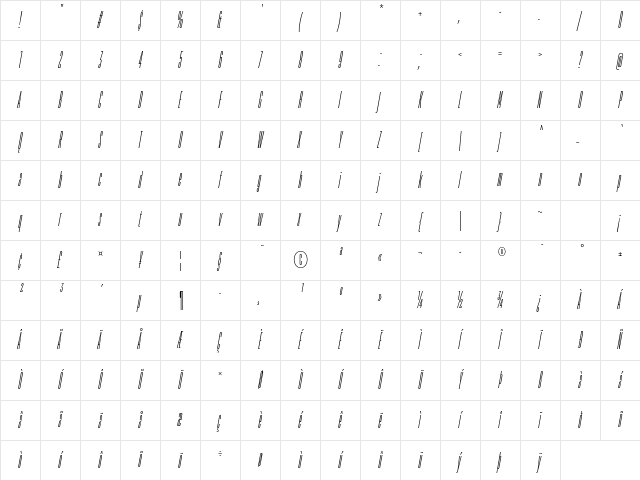
TT Bluescreens Trl Cnd XLt It
Style: XLt It
Designer: Designed by Ivan Gladkikh, Yulia Gonina. Technical designers Marina Khodak, Ekaterina Kurtova, Radik Tukhvatullin, Lada Sobchenko, Antonina Zhulkova, Maria Mezernitskaya, Olexa Volochay, Nadyr Rakhimov, Yuriy Nako, Victor Rubenko.
Design Context for TT Bluescreens Trl Cnd
TT Bluescreens Trl Cnd is a composed and adaptable typeface that performs quietly and consistently across a wide range of design contexts. Its slender proportions lend an understated elegance to any composition.